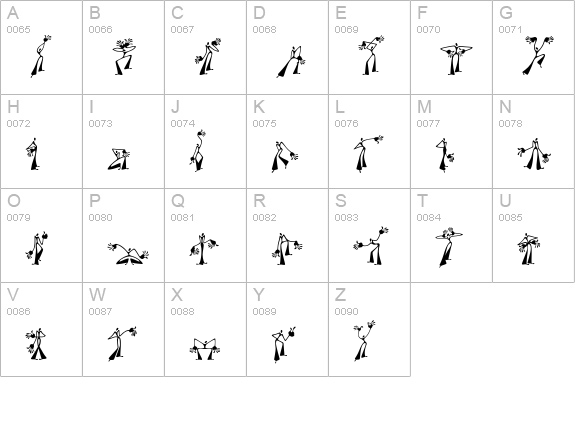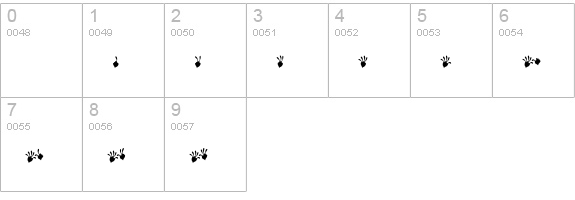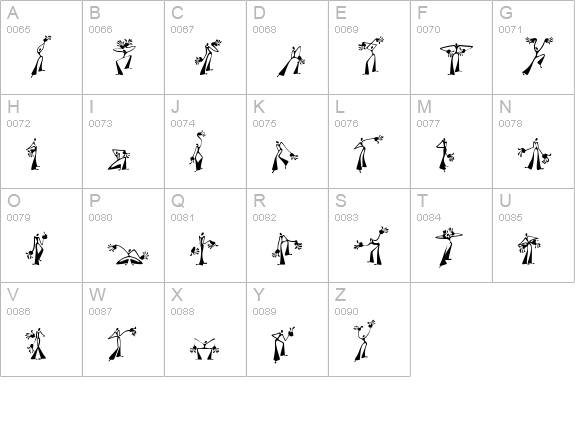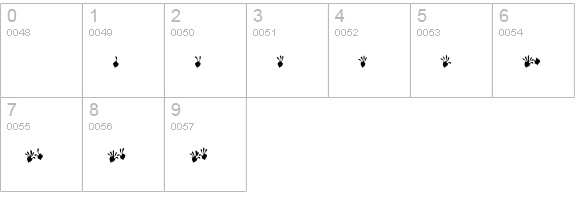
Voila-Flares Font Details
Introducing Voila-Flares, a stunning and versatile font that will bring a touch of elegance to any project. With its smooth curves and delicate strokes, this font is sure to captivate the attention of viewers and add a sense of sophistication to your designs. Voila-Flares is not only visually appealing, but it also offers a wide range of practical applications. Whether you are designing logos, creating beautiful invitations, or crafting eye-catching headlines, this font provides the perfect balance between modernity and classic charm. One of the best things about Voila-Flares is that it is absolutely free! Yes, you read that right. This incredible font is freely available to download at FontsMarket.com, making it accessible to everyone, regardless of their budget or design requirements. So why wait? Embrace the beauty and versatility of Voila-Flares and take your projects to new heights. Download it today and let your creativity shine.